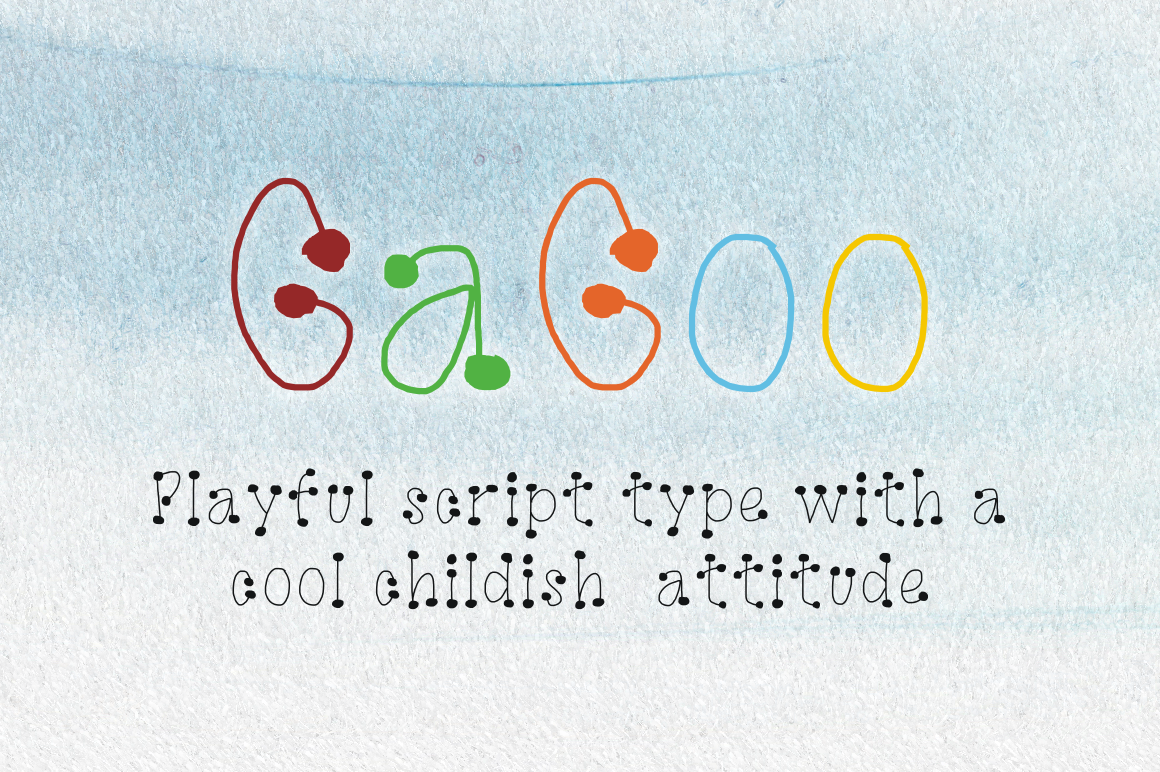
HomeScript FontsGaGoo Font Script Fonts GaGoo Font FacebookXPinterestWhatsApp About GaGoo Font GaGoo font is an experimental script type. It has a playful look which is great for kids designs. DOWNLOAD ON CREATIVE FABRICAThis font is sold and delivered by Creative Fabrica. Font Canyon may earn a commission if you buy through this link. People also explored Hello Christmas Font Girkon Spojisba Font Virginia Priscilla Font Begetto Elliot Font Halland Font Lovelica Font Sweetyoung Font Fall Story Font Indigo Font 331 0 TagsGaGoo Font Previous articleDensfort FontNext articleSaphira Font LEAVE A REPLY Cancel reply Comment: Please enter your comment! Name:* Please enter your name here Email:* You have entered an incorrect email address! Please enter your email address here Website: Save my name, email, and website in this browser for the next time I comment. Personal Use Free Adelfa Personal Use Free Read more about this font Anjhay Personal Use Free Read more about this font Abberancy Personal Use Free Read more about this font Crayones Personal Use Free Read more about this font BLOG Free vs Paid Fonts: Why Investing in Premium Fonts Is Worth It Free vs Paid Fonts: Why Premium Fonts Are Worth It in 2025 The debate of free vs paid fonts continues in the design world. While... Where to Buy American Fonts Online in 2024 Best Fonts for YouTube Videos: Make Your Thumbnails Stand Out How to Cut Any Font on Cricut: Convert a Font to SVG (Free)